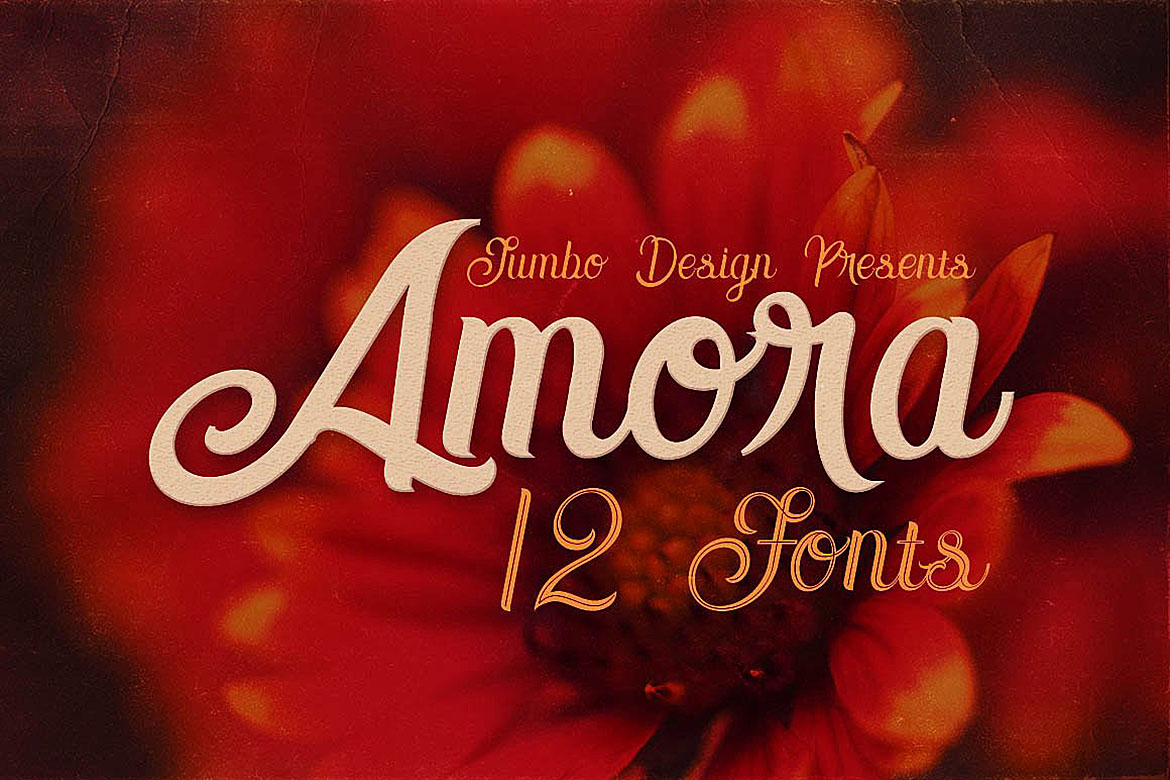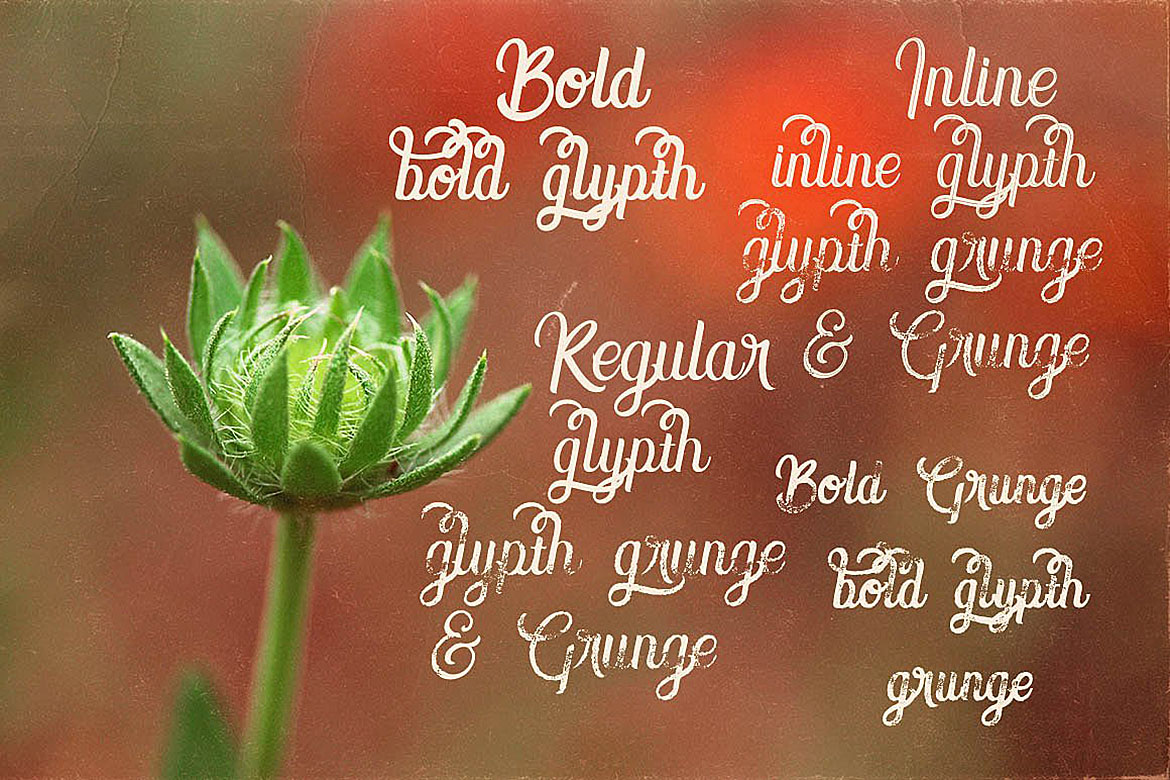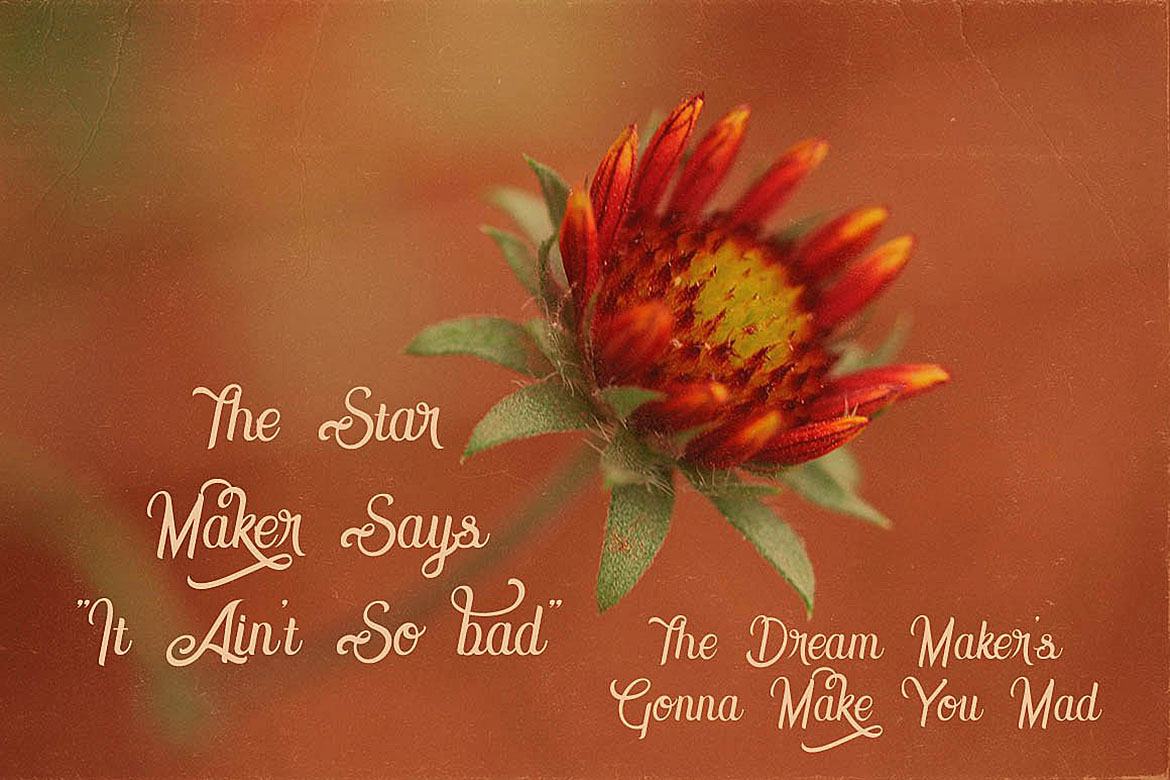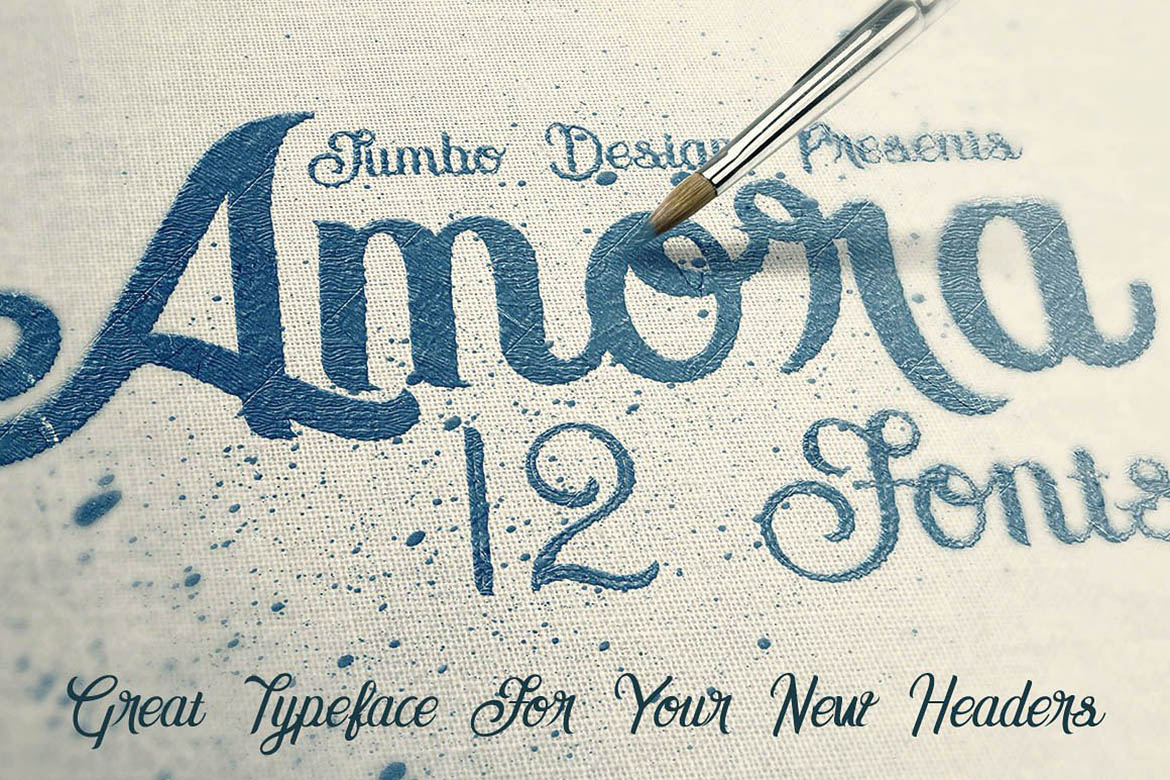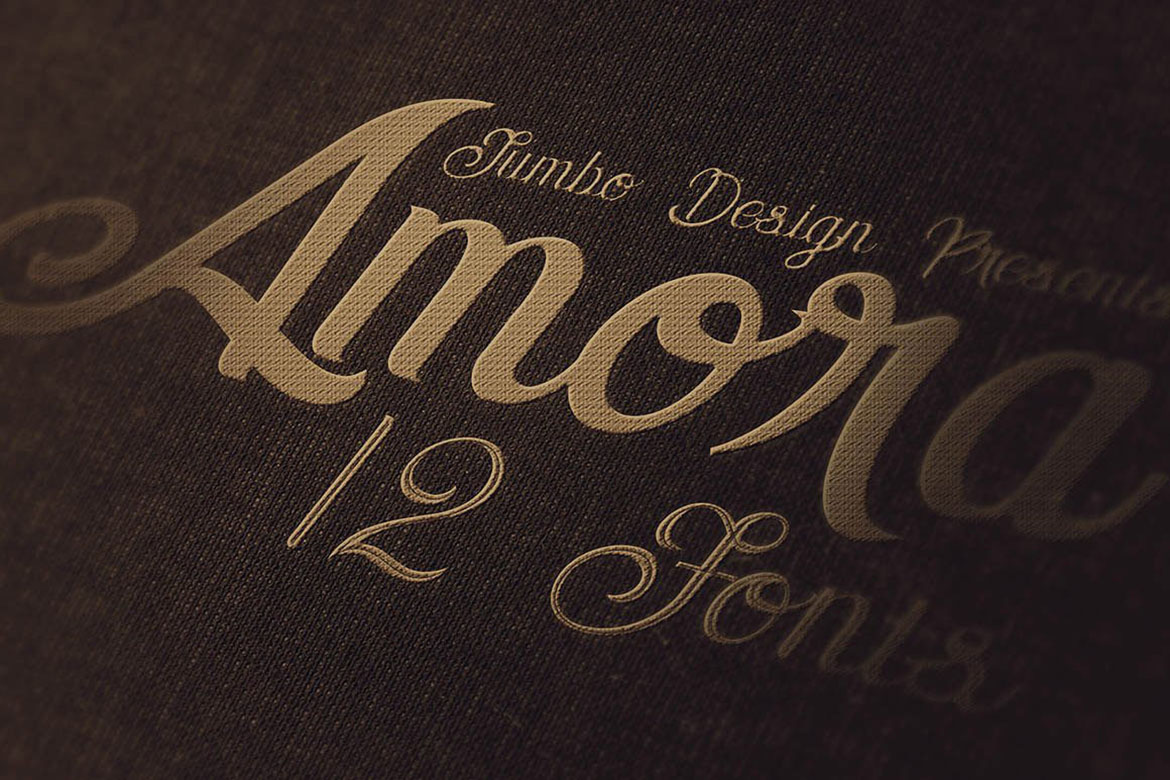
Amora Script Font
About Amora Script Font
Amora is a beautiful and timeless script, perfectly crafted for displays and headlines. This unique, vintage script style comes with 12 different styles to maximize your design options.